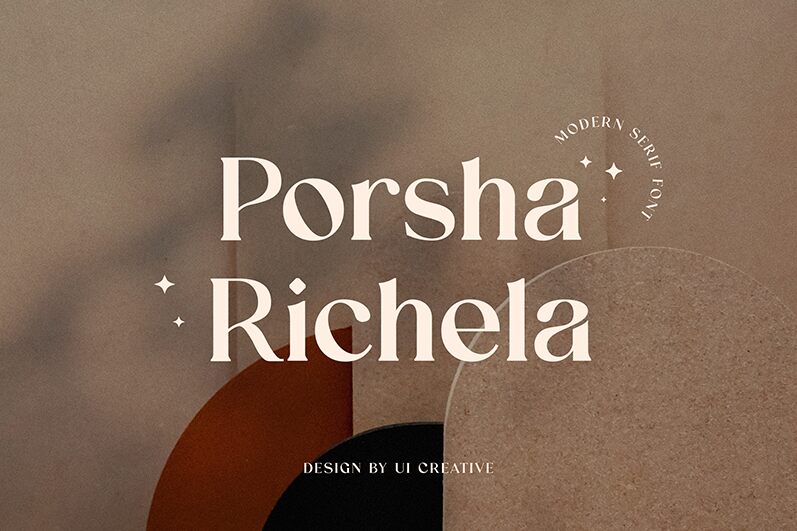
Porsha Richela
Porsha Richela is a sophisticated serif font that exudes elegance and timeless charm. Crafted by the skilled designers at UI Creative, this font boasts a harmonious balance of classic and modern elements. The subtle serifs and refined letterforms create a visually appealing and legible aesthetic, making it a versatile choice for a wide range of design applications.
Porsha Richela's versatility shines through its ability to lend an air of sophistication and refinement to various design projects, from editorial layouts and book covers to branding collateral and advertising materials. Its captivating blend of tradition and modernity allows it to seamlessly integrate into both formal and contemporary design contexts, making it a valuable asset for designers seeking to elevate the visual impact of their work.